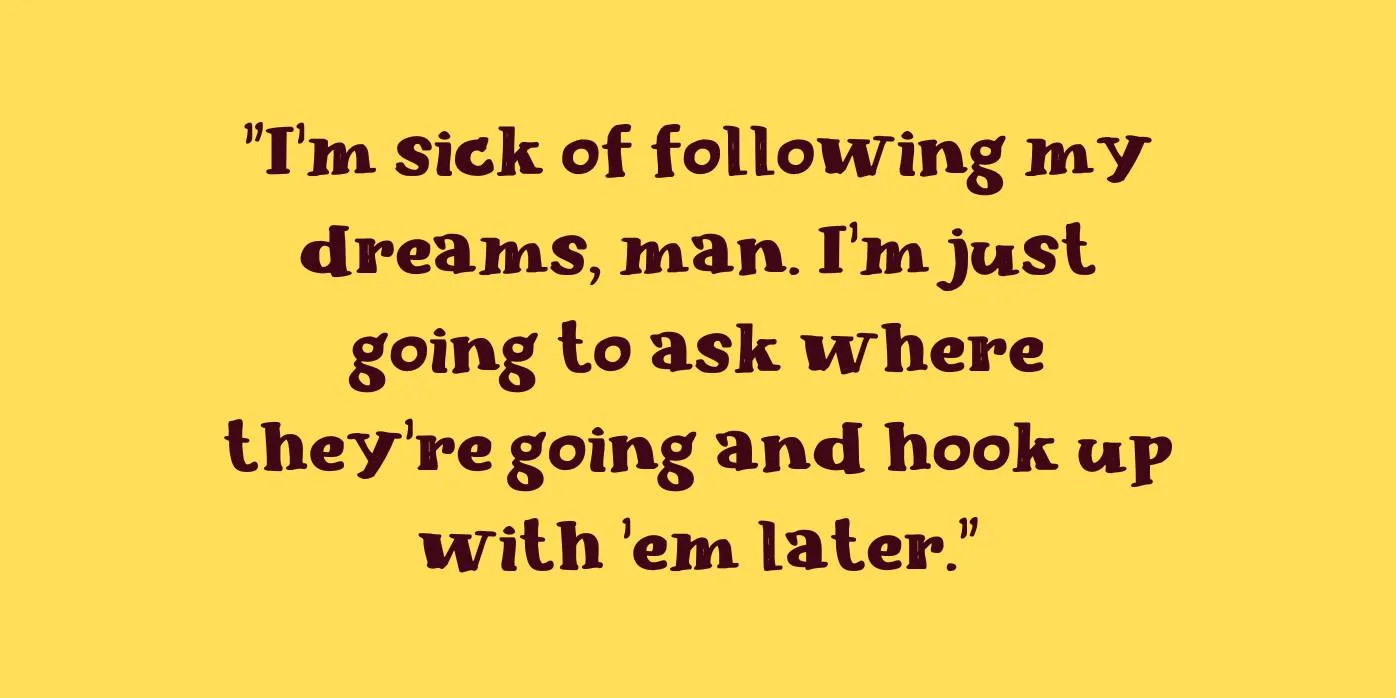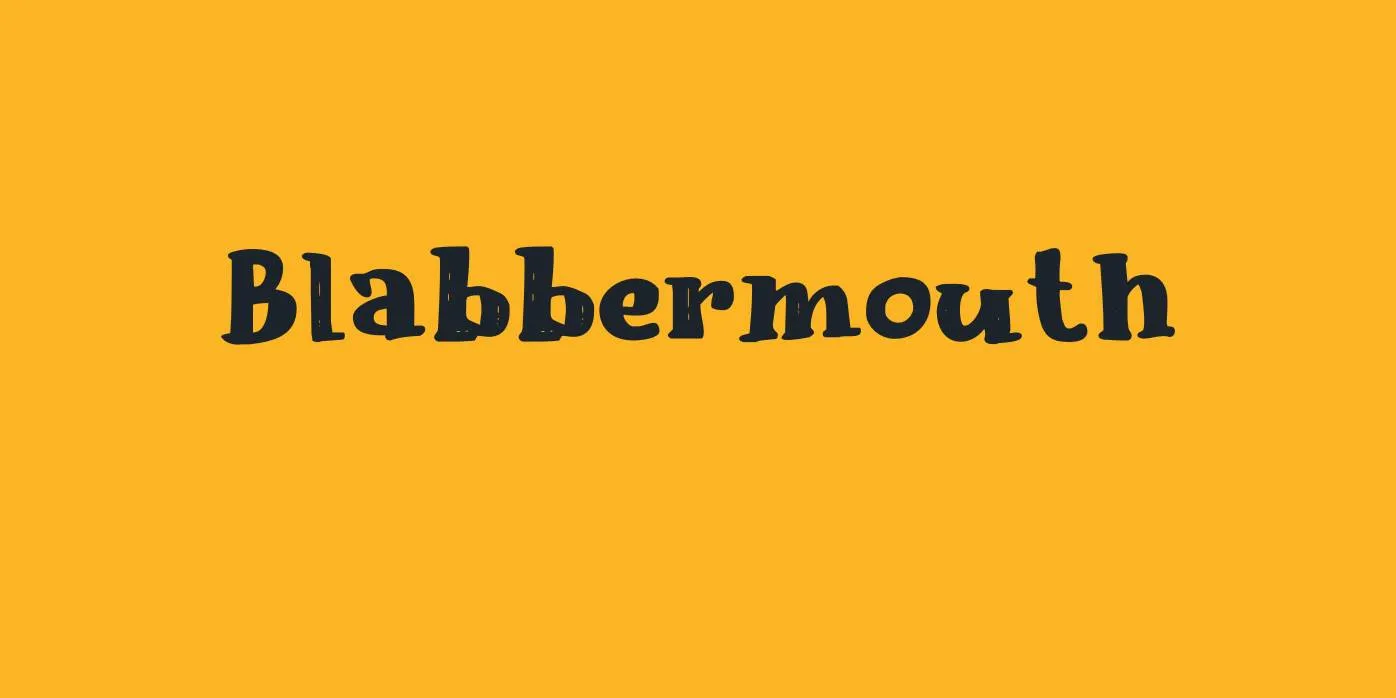
Blabbermouth Font
Blabbermouth is a very nice fancy font and it was designed by David Kerkhoff. This stunning font can be used to design so many different projects can be made by using this font. It contains 424 characters, 391 glyphs, and 1000 units per Em. Embedding rights are allowed for editing only for this font.
It has characters, symbols, small letters, capital letters, special characters, numbers, and punctuations. Attractive headlines can be made by using this font. You can make cartoons and other organizations’ logos and titles by using them. It can be used for branding and product packing as well.
For making attractive kids-related items, storybooks, and book covers you can also use this font. To make or edit designs in Adobe Photoshop, CSS, and Canva you can make interesting projects with this typeface. You can create posts on Facebook, Instagram, and other social media resources by using this font. This typeface can also be used for making greeting or birthday cards as it is considered a good option for both print and digital media.